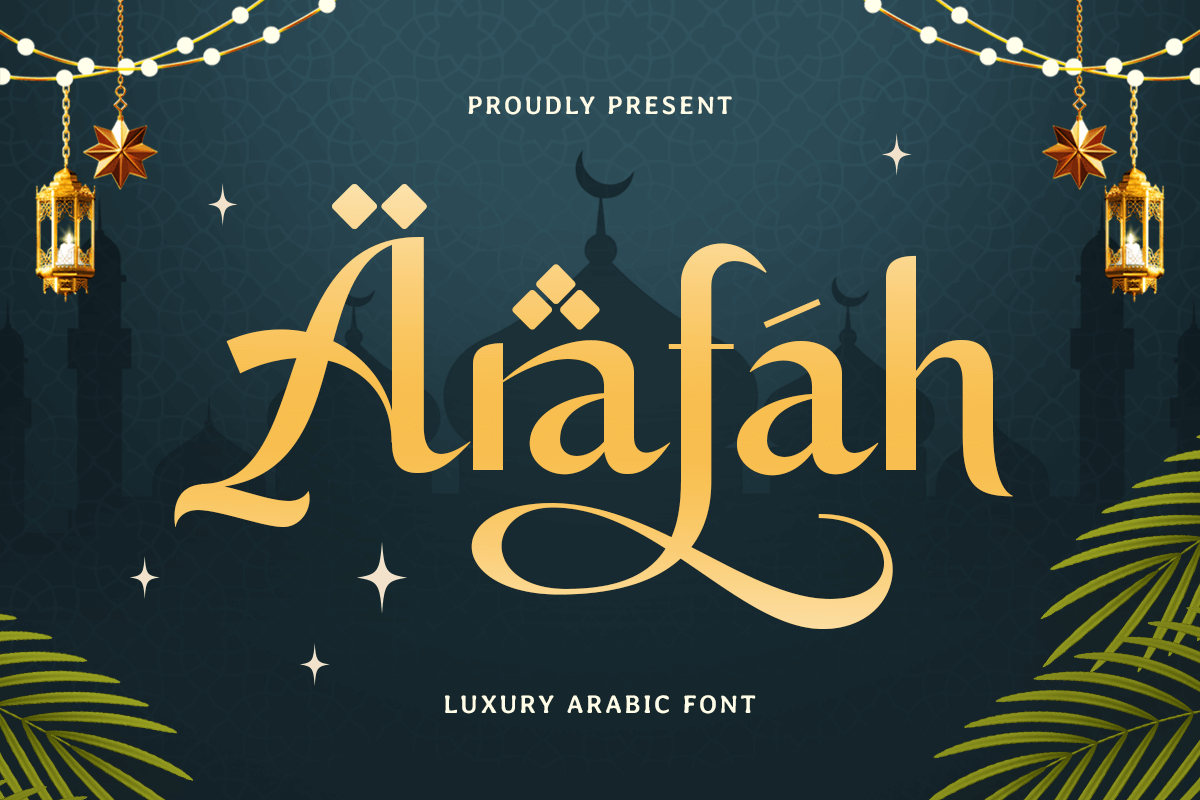
Arafah
-Luxury Arabic FontArafah - Luxury Arabic Font
Arafah is a premium Arabic font crafted to elevate your design projects with a luxurious and refined aesthetic. Its elegant curves and contemporary style make it ideal for high-end branding, Ramadan campaigns, exclusive invitations, and more.
Inspired by the artistry of Arabic calligraphy and the cultural richness of Islamic design, Arafah strikes a perfect balance between tradition and modernity. Whether you’re working on digital media, print materials, or packaging, Arafah ensures your creations exude class and elegance.
Elevate your creative toolkit with Arafah, the ultimate choice for designers seeking luxury and cultural depth in their Arabic typography.
Arafah Luxury Arabic Font Features:
Elegant and Modern Arabic Typography
Includes Punctuation, Numbers, and Symbols
Uppercase and Lowercase Characters
OpenType Features for advanced styling options